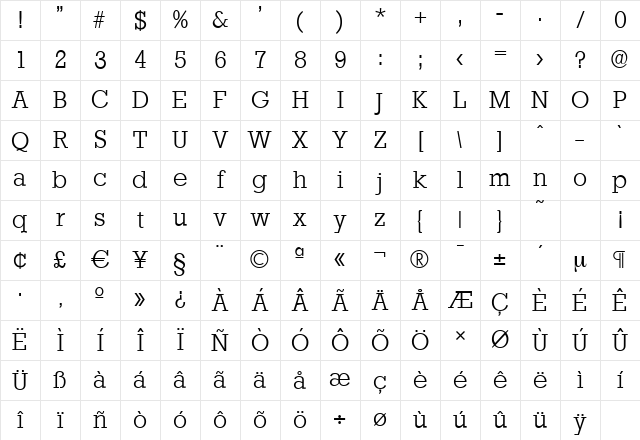
StaffordSerial-Light Regular Free Font
Design Context for StaffordSerial-Light
StaffordSerial-Light is a composed and adaptable typeface that performs quietly and consistently across a wide range of design contexts. Its slender proportions lend an understated elegance to any composition.